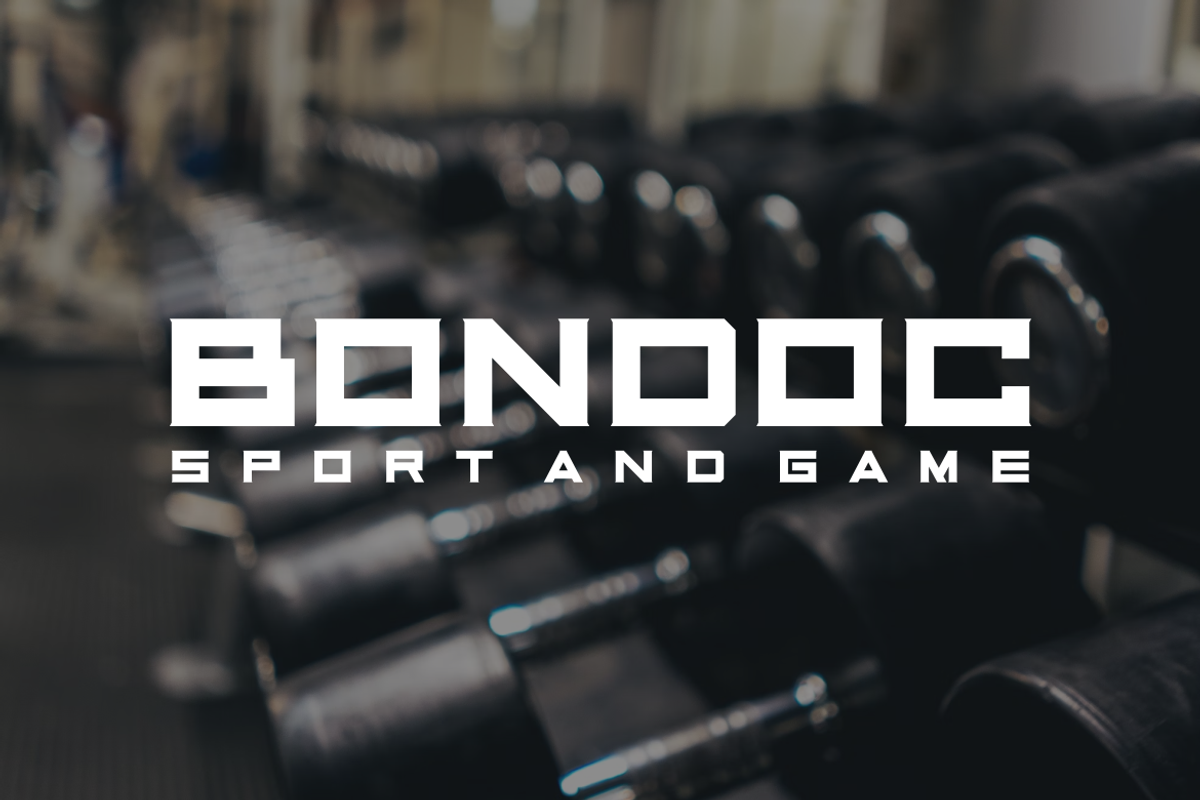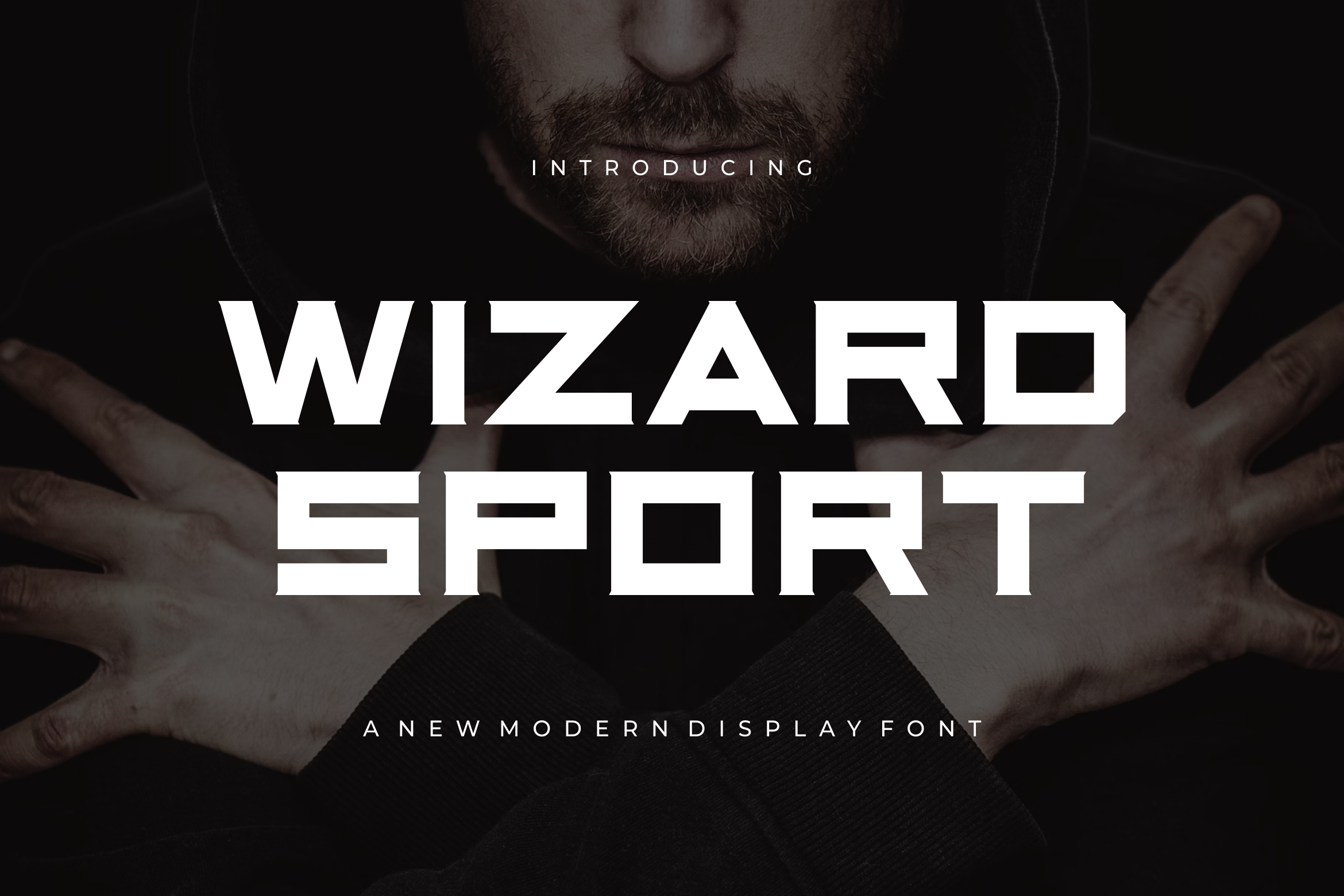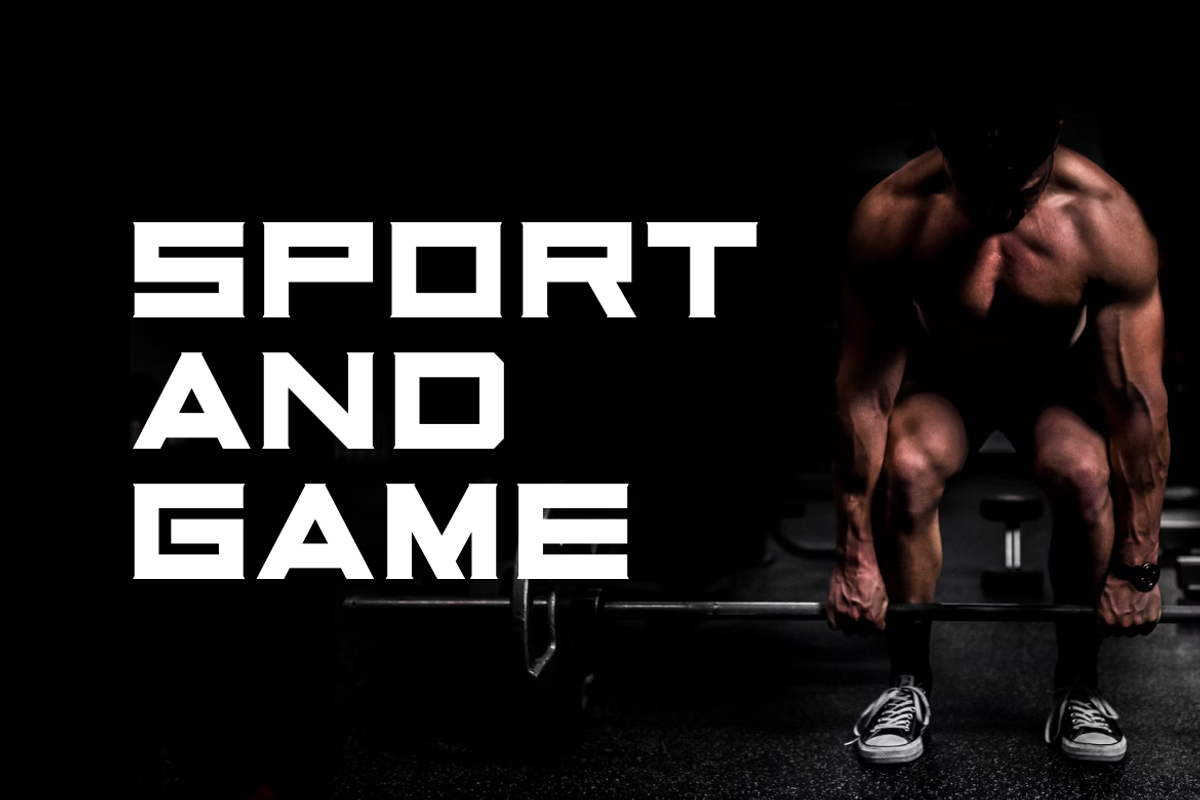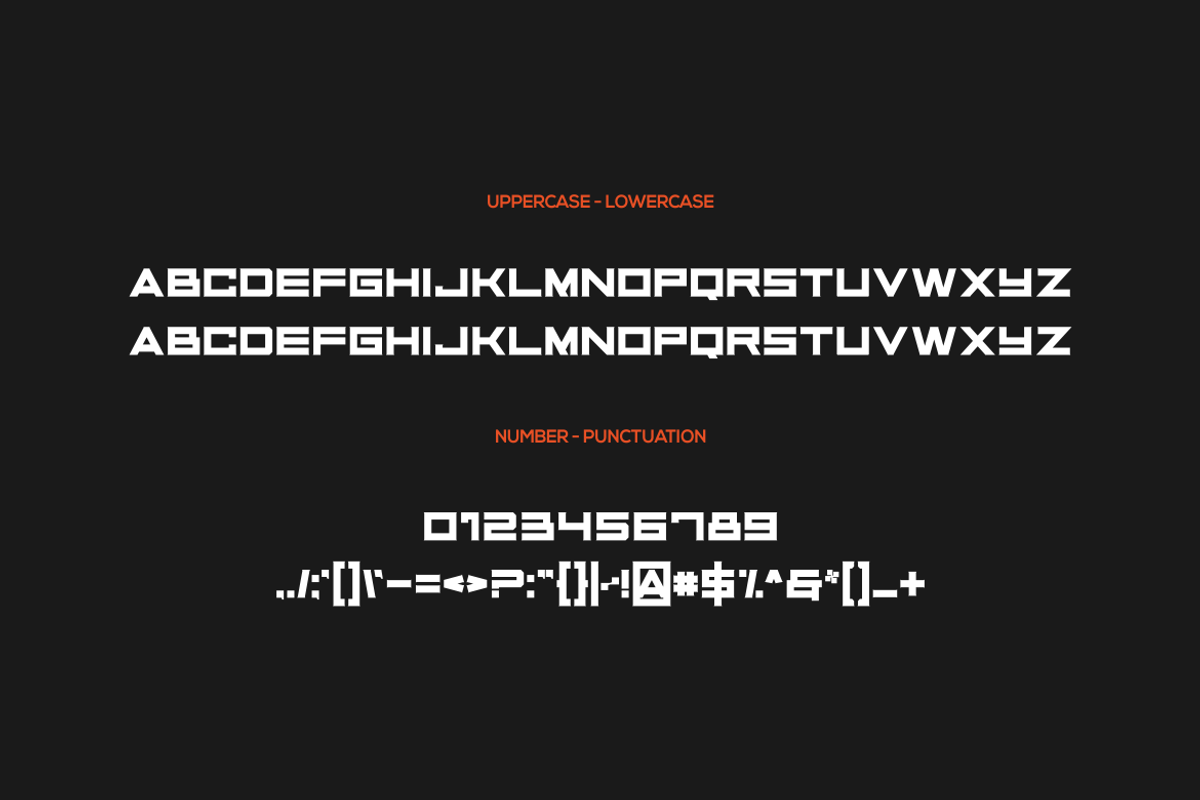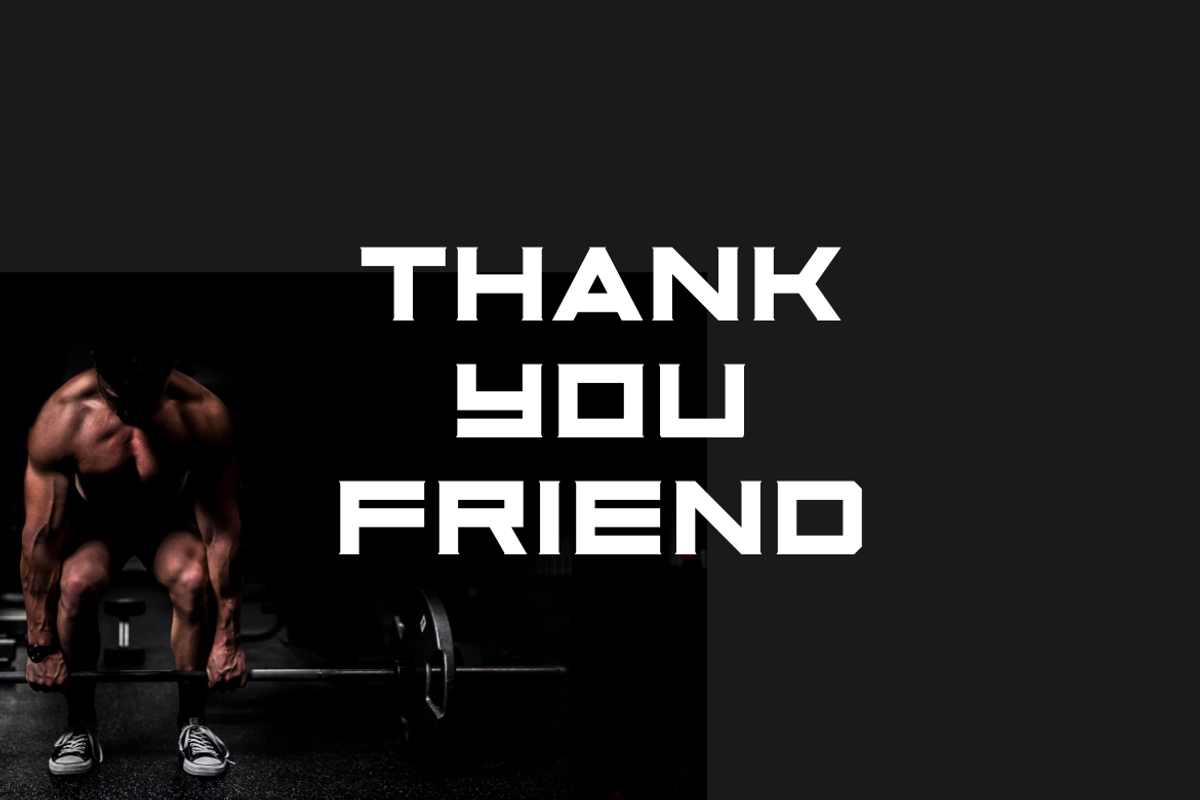
Wizard Sport - Font
- Modern Font is a bold and authentic display font. The font is suitable for any branding project like logo, t-shirt printing,, and many more. outstanding in a wide range of contexts.